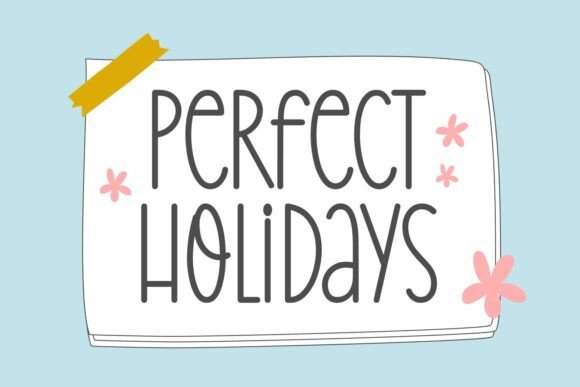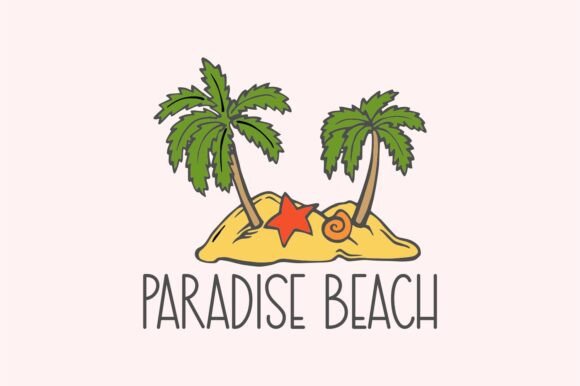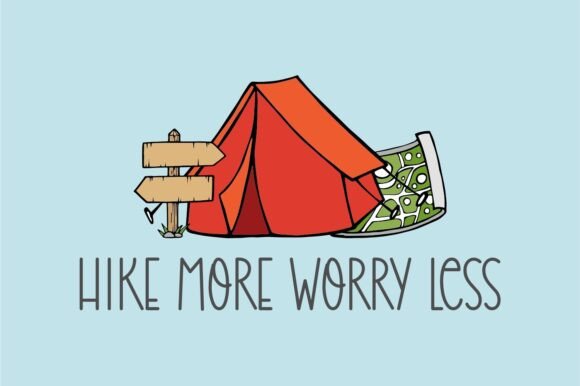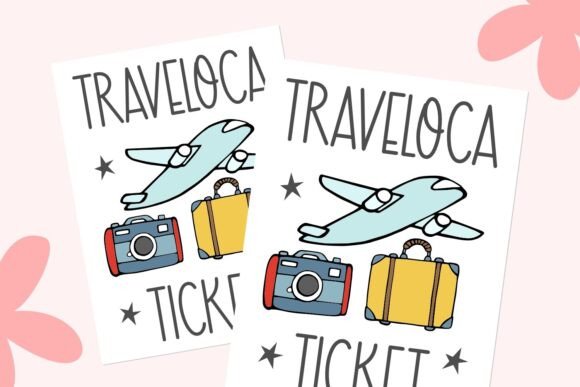
Perfect Holidays Font
About the Perfect Holidays Font
Welcome to the world of Perfect Holidays Font, a typeface that will inspire your next great project. Bring a whimsical charm to your designs with this playful, hand-drawn font. Its tall, narrow lettering and quirky curves create a friendly and relaxed vibe, perfect for travel-themed projects, holiday cards, planners, and DIY crafts. With multilingual support and a full set of characters, this font seamlessly blends fun with functionality, making it ideal for any creative project needing a lighthearted touch.
Perfect Holidays Font excels in headlines, short text blocks on packaging, and social media graphics where its playful nature shines. It’s also well-suited for invitations and smaller design elements within larger layouts. However, avoid using it for body text or lengthy paragraphs; its whimsical style is less legible at smaller sizes and over extended reads.
Consider pairing Perfect Holidays Font with a clean sans-serif like Montserrat for a balanced contrast, or a more geometric sans-serif like Futura for a modern feel. A classic serif like Garamond could add a touch of sophistication, while a simple script font like Allura could enhance its festive charm for select applications.
The font’s core personality is undeniably cheerful and friendly, making it a great choice for brands targeting a young, playful audience or for projects with a lighthearted, celebratory mood. Its informal hand-drawn style makes it unsuitable for serious or corporate branding.